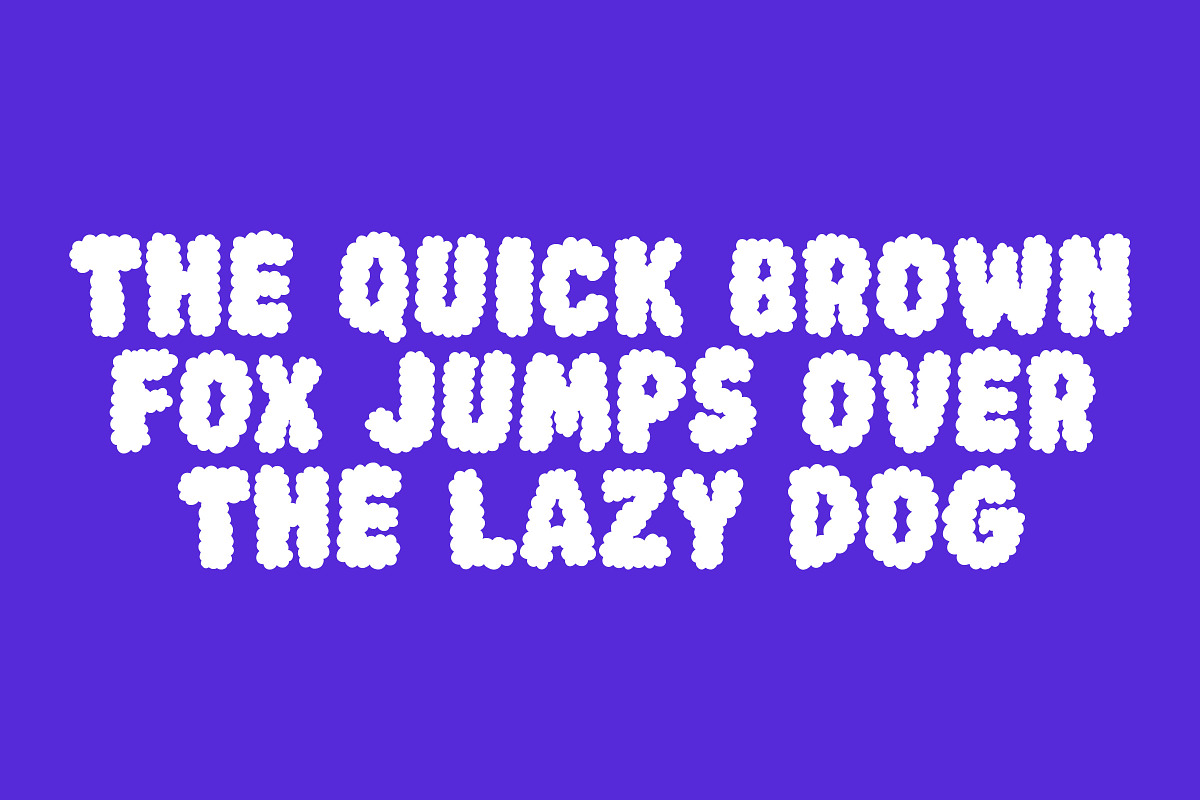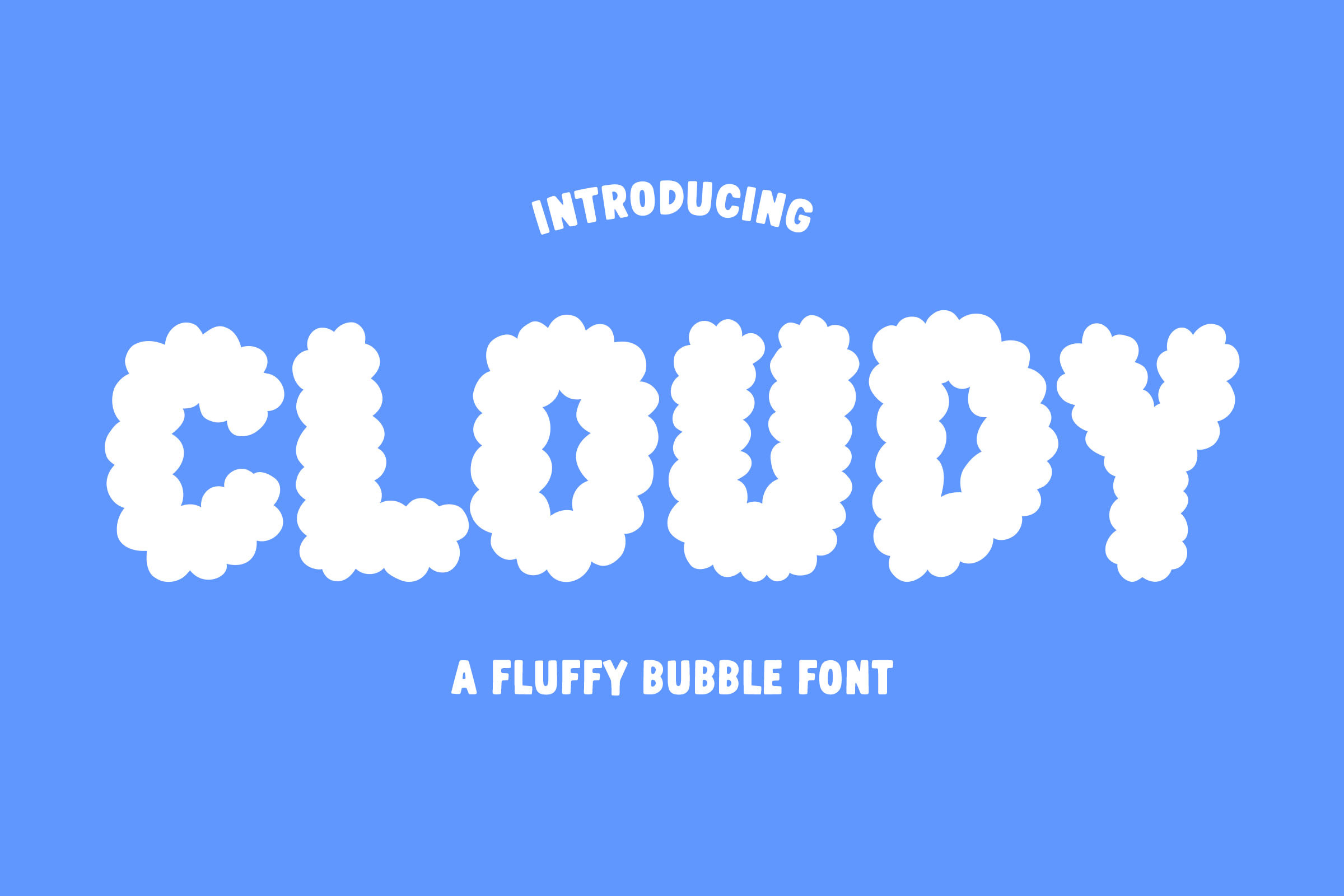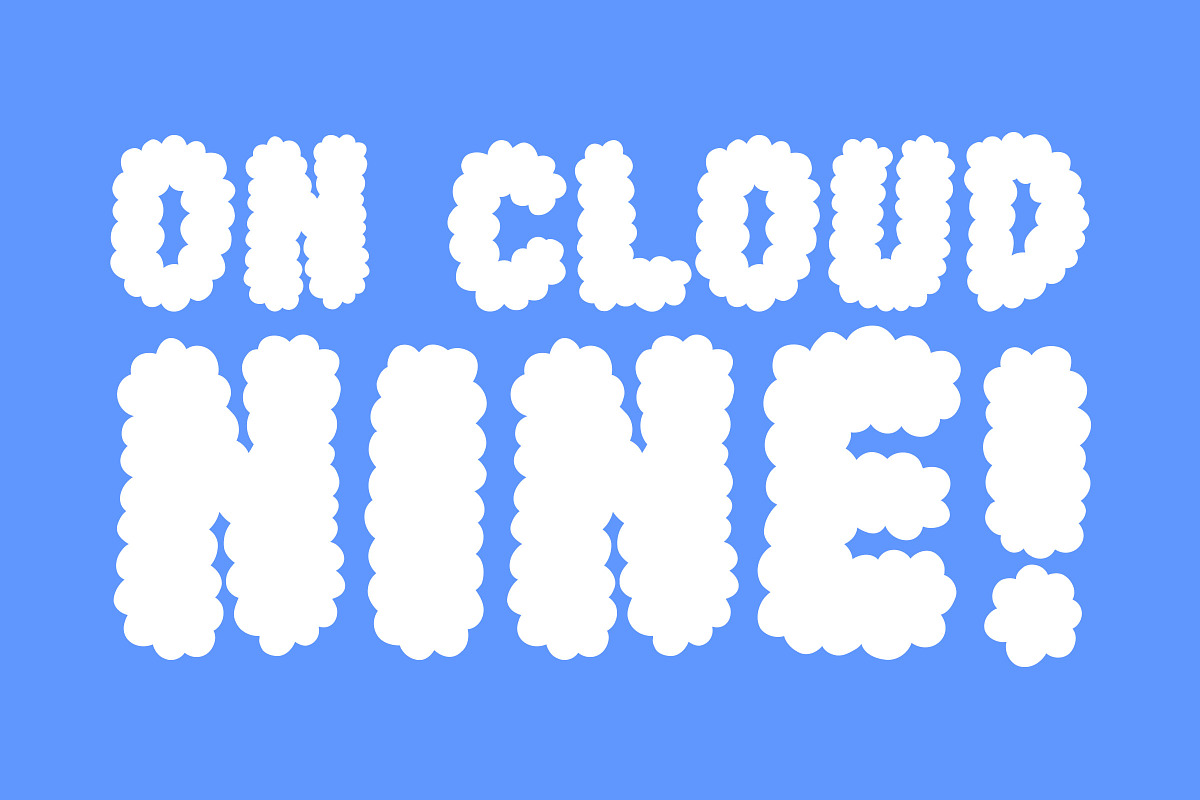
Cloudy - Fluffy Bubble Font
Cloudy is a fluffy chunky bubble typeface perfect for any fun quirky design work! This font can be used for anything such as t-shirt designs, phone cases, greeting cards, invitations, mugs and so much more! Get creative!